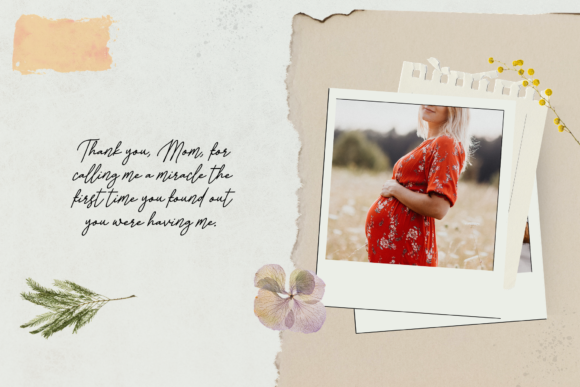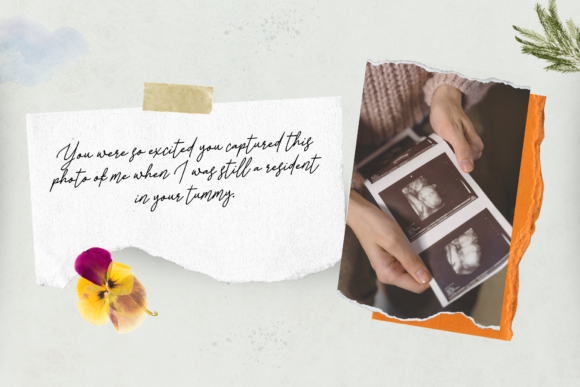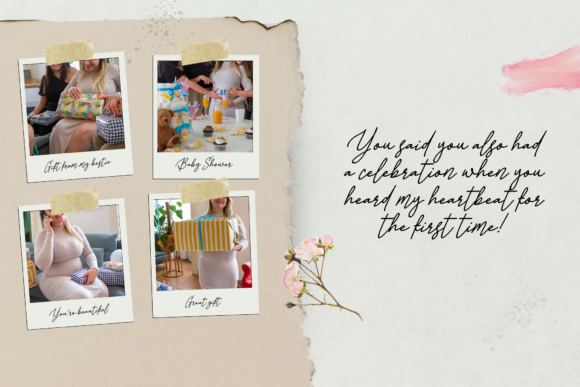
Introduction to Pregnancy Journey Font
Pregnancy Journey is a delicate and flowing script font.
It is suitable for any branding project like logos, t-shirt printing, sport designs, and more It will look outstanding in a wide range of contexts.
Why Choose Pregnancy Journey Font?
Pregnancy Journey Font offers exceptional quality and versatility, making it a valuable addition to your design toolkit. Whether you’re creating for personal projects or commercial use, Pregnancy Journey Font delivers professional results.